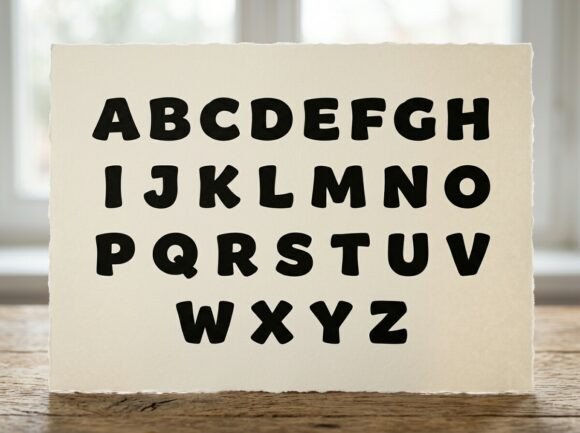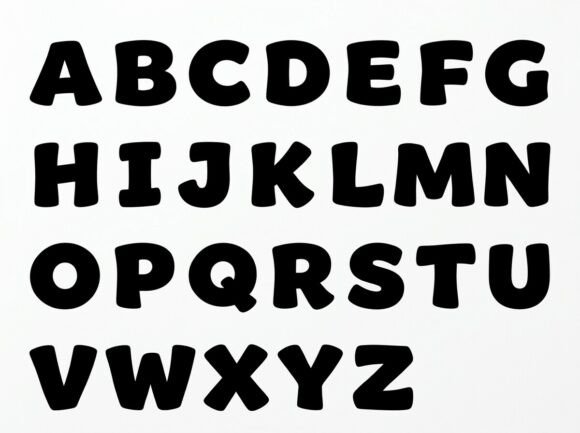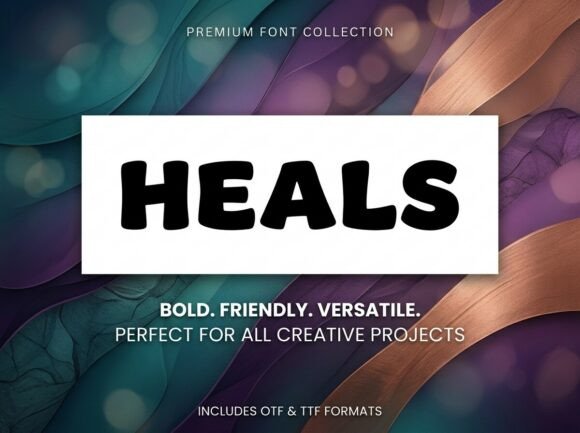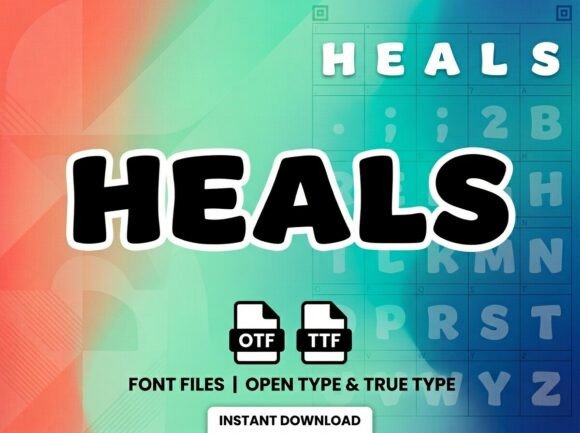
Introducing Heals Font: A Stunning Decorative Display Font
Are you tired of using the same old fonts for your designs? Do you want to add a touch of uniqueness and creativity to your projects? Look no further than Heals Font, a decorative display font that is sure to turn heads. In this article, we’ll take a closer look at Heals Font, its features, and how it can elevate your designs.
Heals Font is a stunning decorative display font designed to be the center of attention. With its unique artistic elements and strong visual personality, this font is perfect for creators who want to break away from the ordinary. Whether you’re working on a bold headline, artistic logo, or creative packaging, Heals Font is versatile enough to make a lasting impression while maintaining a professional and polished finish.
⚠️ IMPORTANT NOTE BEFORE PURCHASE: Heals Font is an ALL-CAPS (Uppercase Only) display typeface. This means that it does not include lowercase letters. It is specifically designed for high-impact headlines, logos, and decorative initials where every letter is a work of art.
Use Cases
So, how can you use Heals Font to elevate your designs? Here are a few ideas:
• Headlines and Titles: Use Heals Font to create bold and eye-catching headlines that grab attention. Perfect for magazines, newspapers, or online articles.
• Logos and Branding: Create a unique and memorable logo for your business or brand. Heals Font’s artistic elements and strong visual personality make it perfect for logos that need to stand out.
• Packaging and Labels: Add a touch of creativity to your packaging and labels with Heals Font. Perfect for product labels, packaging inserts, or promotional materials.
• Social Media Graphics: Use Heals Font to create stunning social media graphics that grab attention. Perfect for Facebook, Instagram, Twitter, or LinkedIn.
Why Choose Heals Font?
So, why choose Heals Font over other decorative display fonts? Here are a few reasons:
• Unique and Creative: Heals Font offers a unique and creative way to add visual interest to your designs.
• Professional and Polished: Despite its decorative nature, Heals Font maintains a professional and polished finish, making it perfect for business and commercial use.
• Versatile: Heals Font is versatile enough to be used for a wide range of design projects, from headlines and logos to packaging and social media graphics.
In conclusion, Heals Font is a stunning decorative display font that is sure to elevate your designs. With its unique artistic elements, strong visual personality, and versatility, this font is perfect for creators who want to break away from the ordinary. Whether you’re working on a bold headline, artistic logo, or creative packaging, Heals Font is a great choice. So why wait? Get Heals Font today and start creating stunning designs that demand attention!